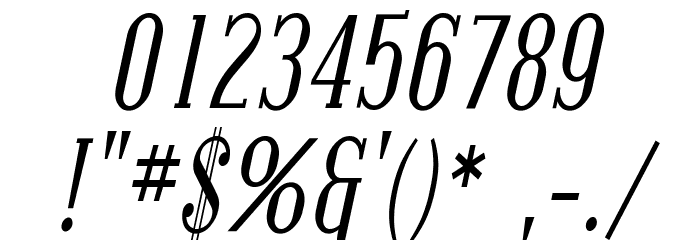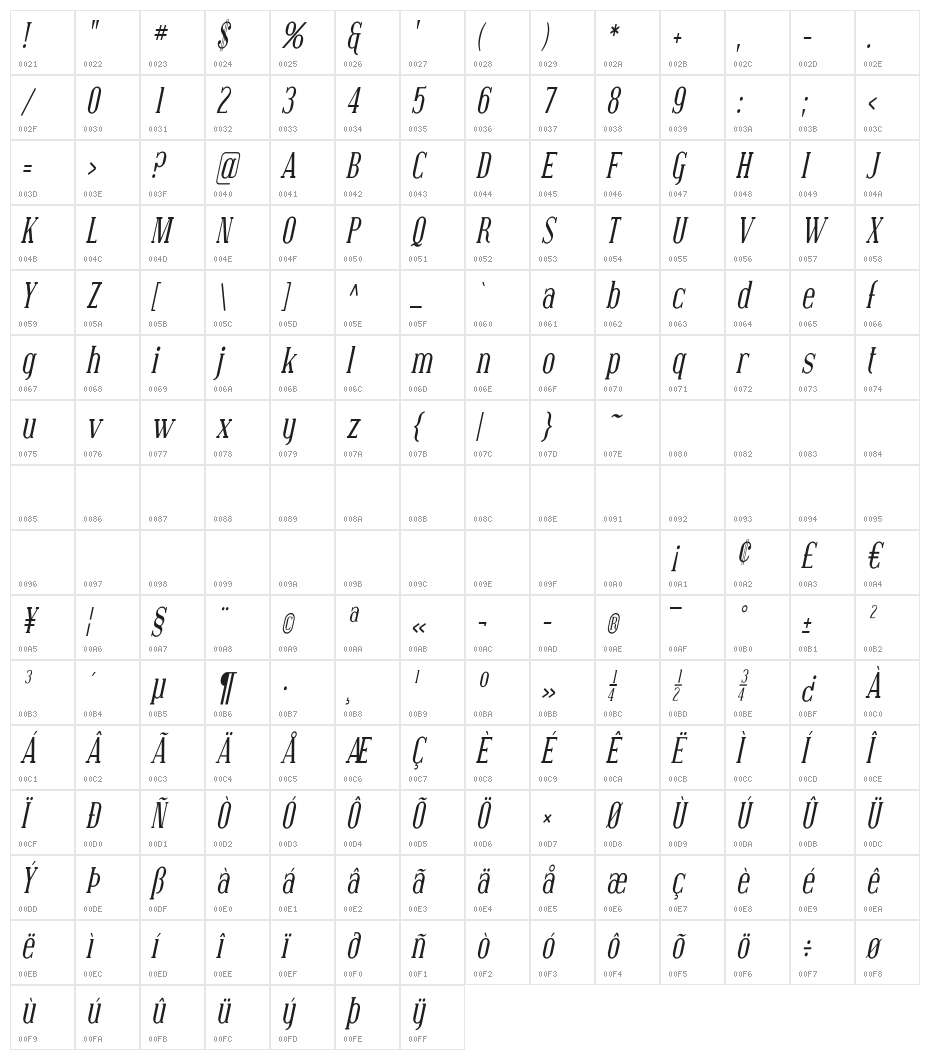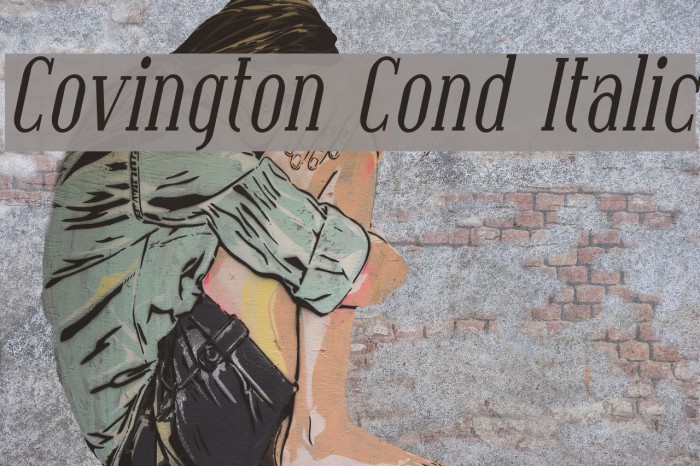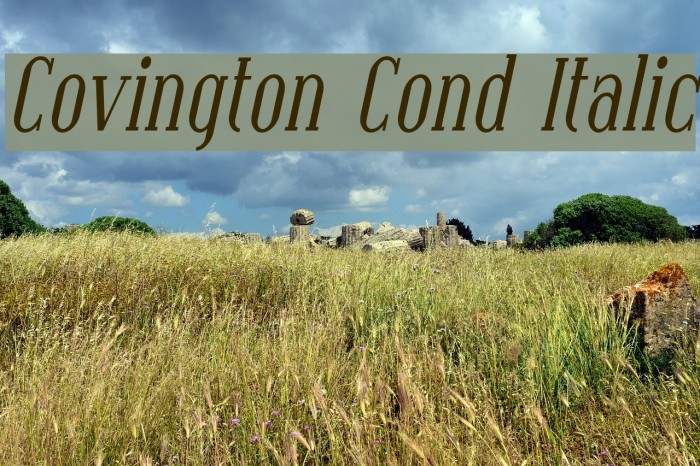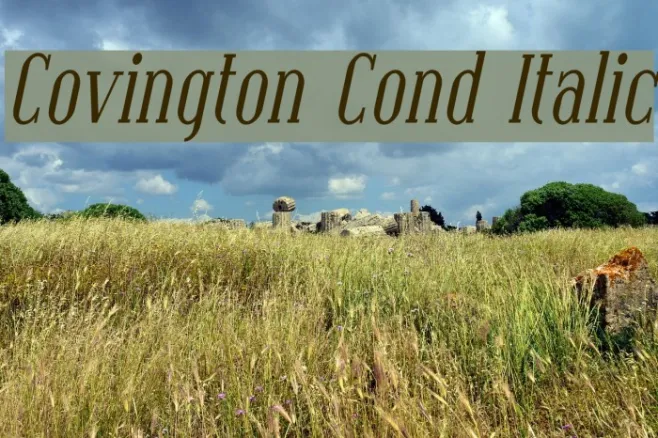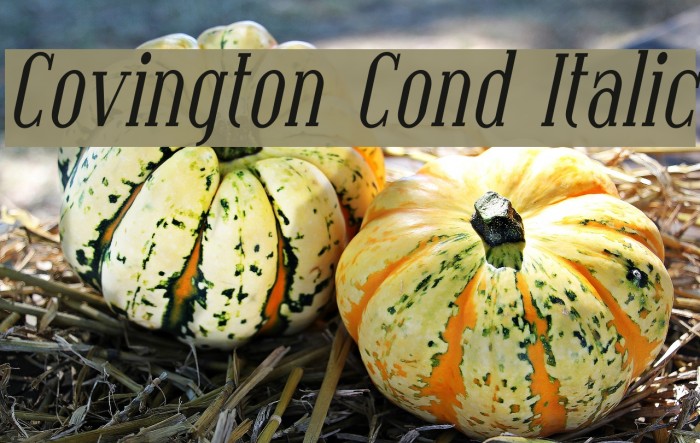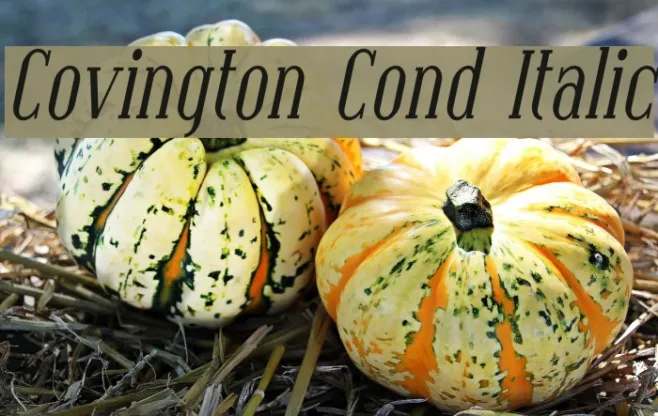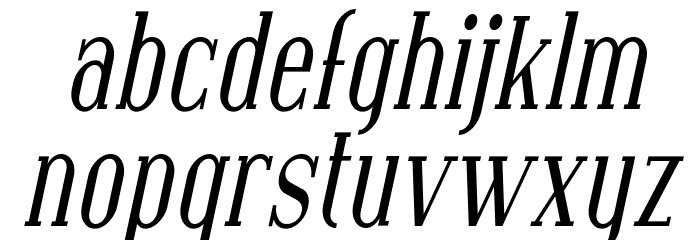
Covington Cond Italic Font
Covington Cond Italic Description
This font features a classic serif style with a condensed and italicized form, offering a sophisticated and elegant appearance. The characters are elongated with a slight slant, enhancing the italic effect. The serifs are sharp and pronounced, adding a touch of formality and tradition. The overall design is clean and legible, making it suitable for both digital and print media. The numbers and special characters maintain the same stylistic features, ensuring consistency across all glyphs. This font is ideal for projects that require a refined and professional look.
| Proposed Projects | Ideal for editorial design, book covers, formal invitations, and branding materials that require a touch of elegance and tradition. |